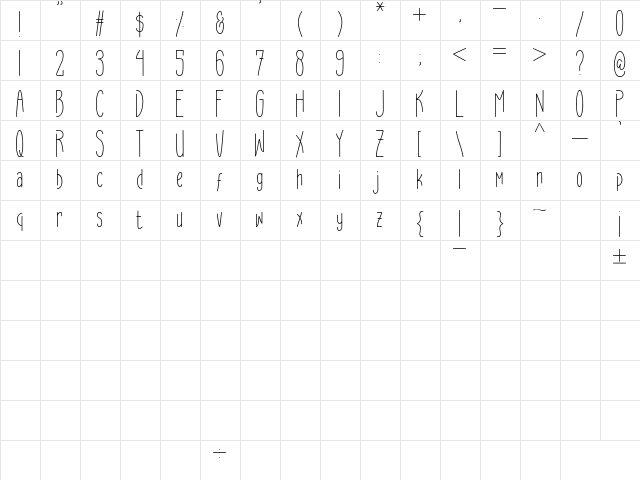
Avoid Light Regular Free Font
Avoid Light Regular
Design Context for Avoid Light
Avoid Light is a composed and adaptable typeface that performs quietly and consistently across a wide range of design contexts. Its slender proportions lend an understated elegance to any composition.